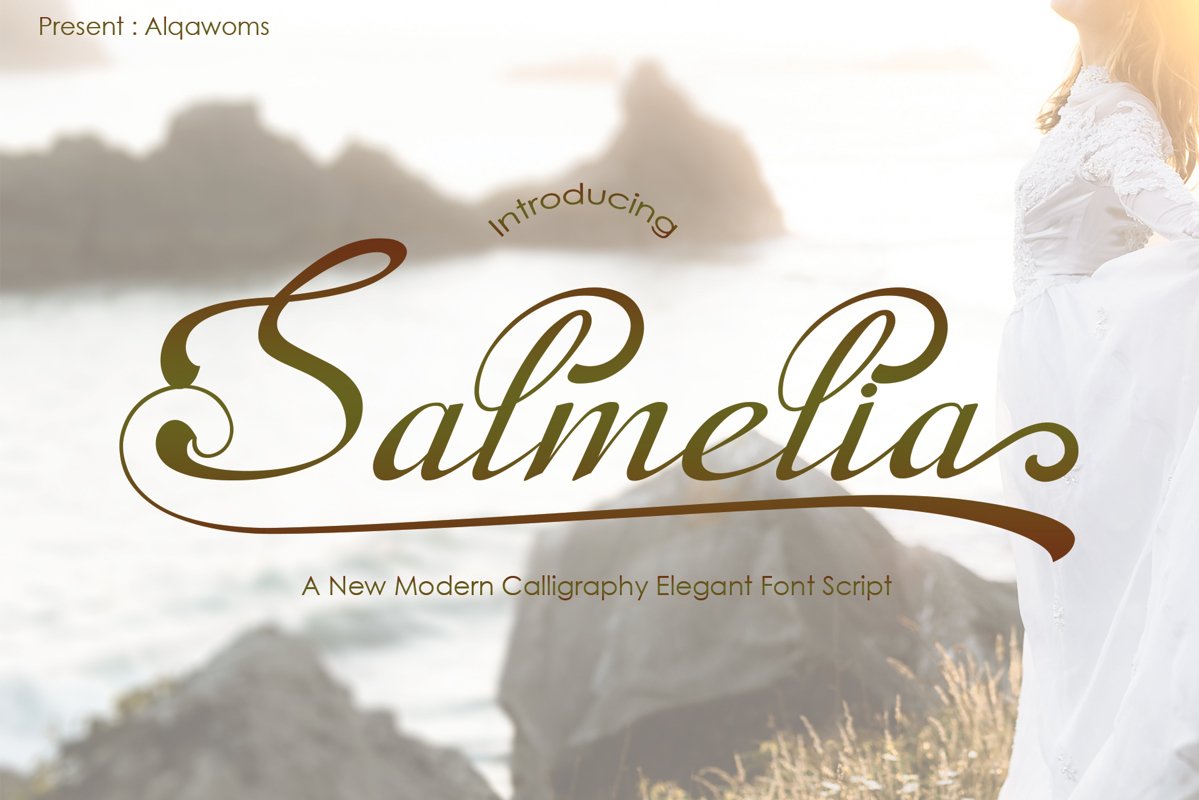
Salmelia
Introducing:
Salmelia a font work that is purely handwritten, has its own characteristics with the style of Salmelia. this is perfect for invitations, signatures, blogs, social media, business cards, product brands.
Orleons has Stylistic standard, Stylistic Alternate, Stylistic Sets and ligatures. and includes uppercase and lowercase letters, numbers and punctuation marks.
The Features of this fonts is;
* Standart ligatures
* Stylistic Alternates
* Contextual Alternates
* Stylistic sets